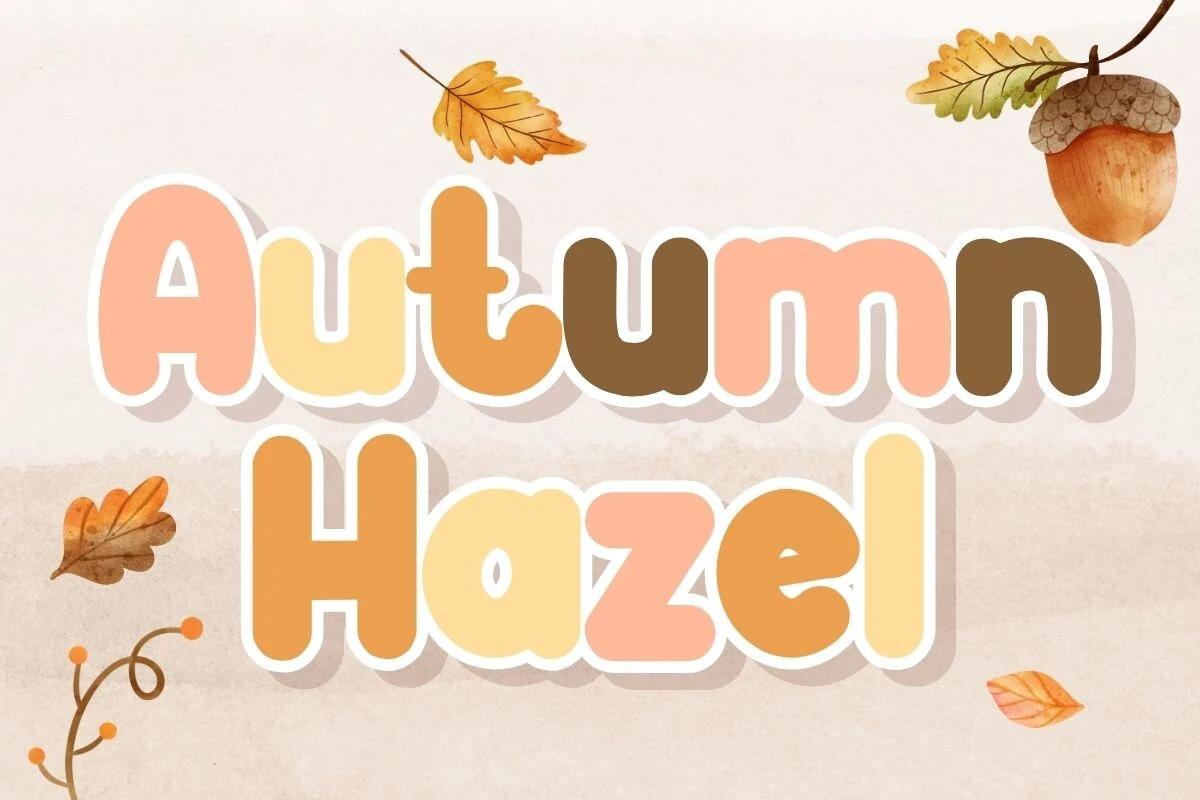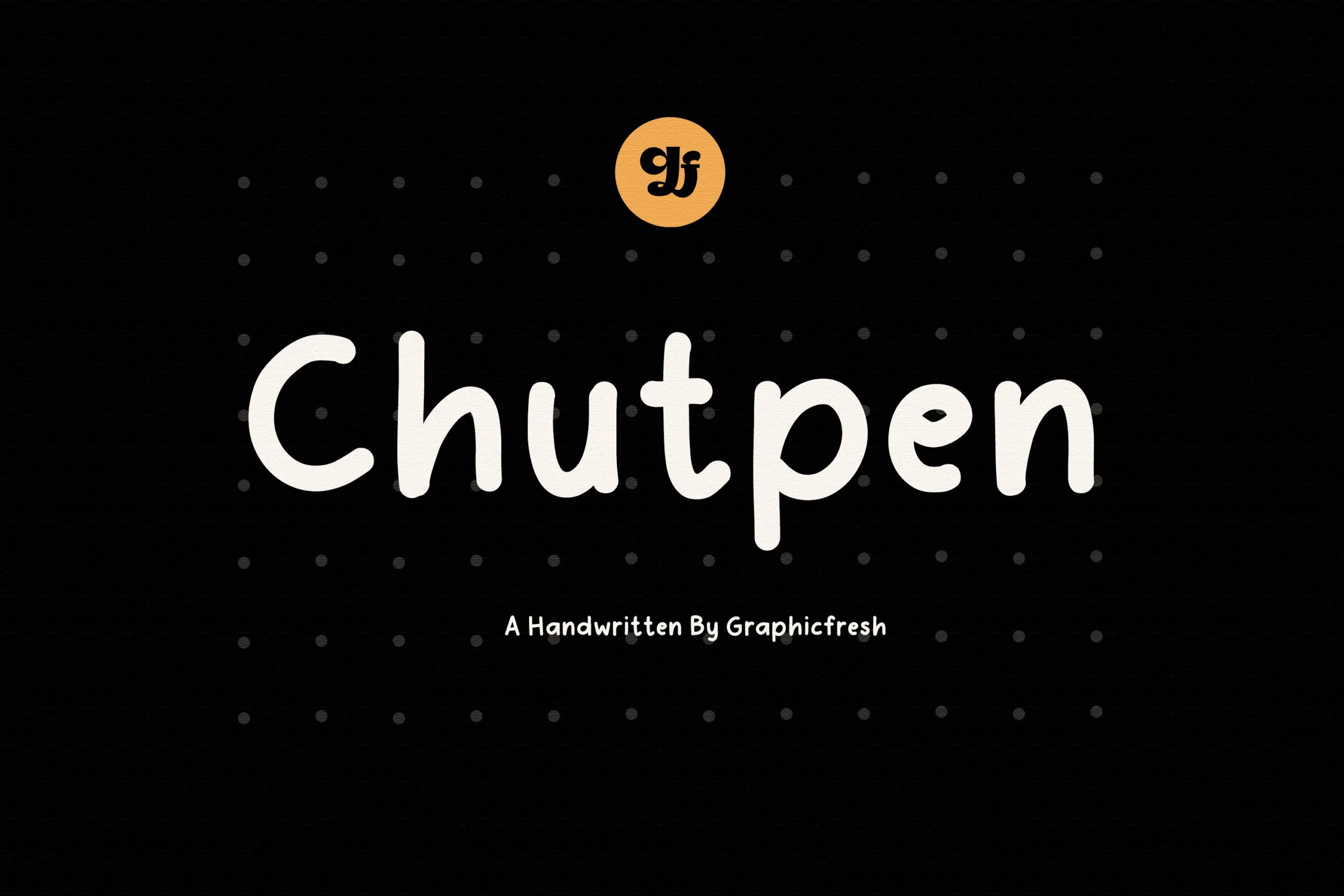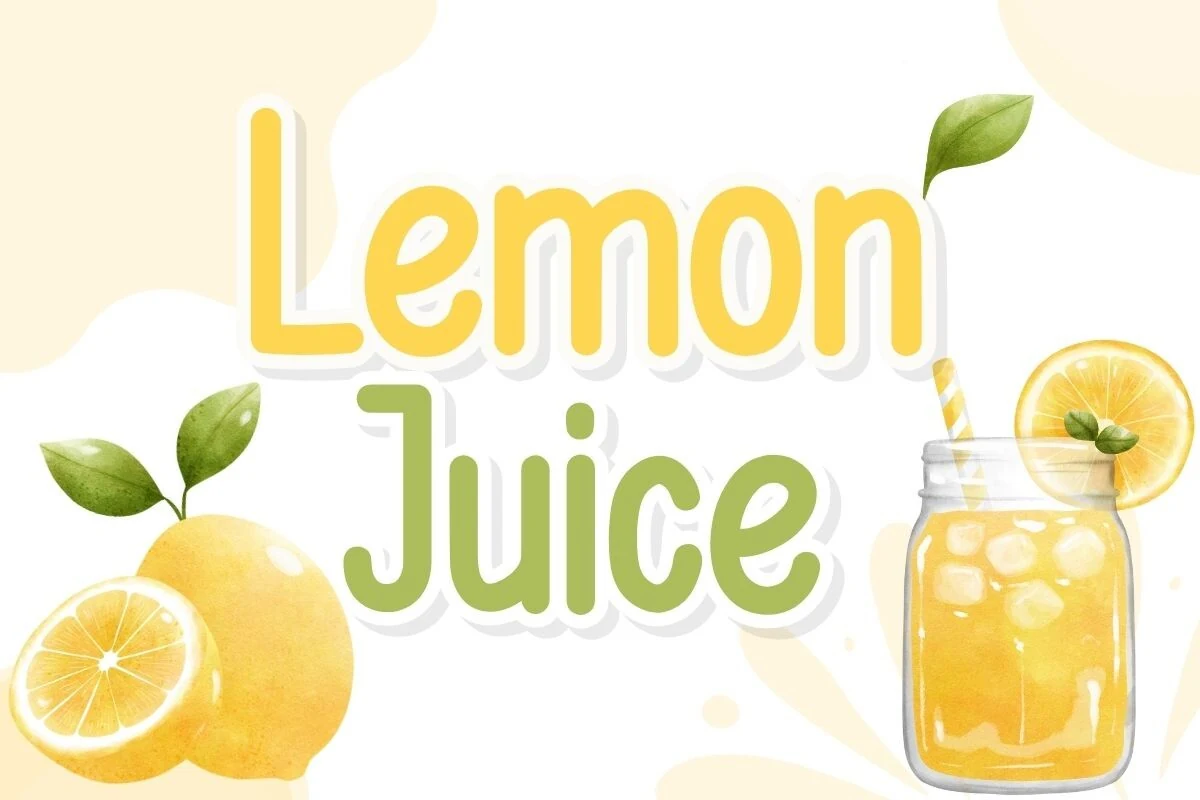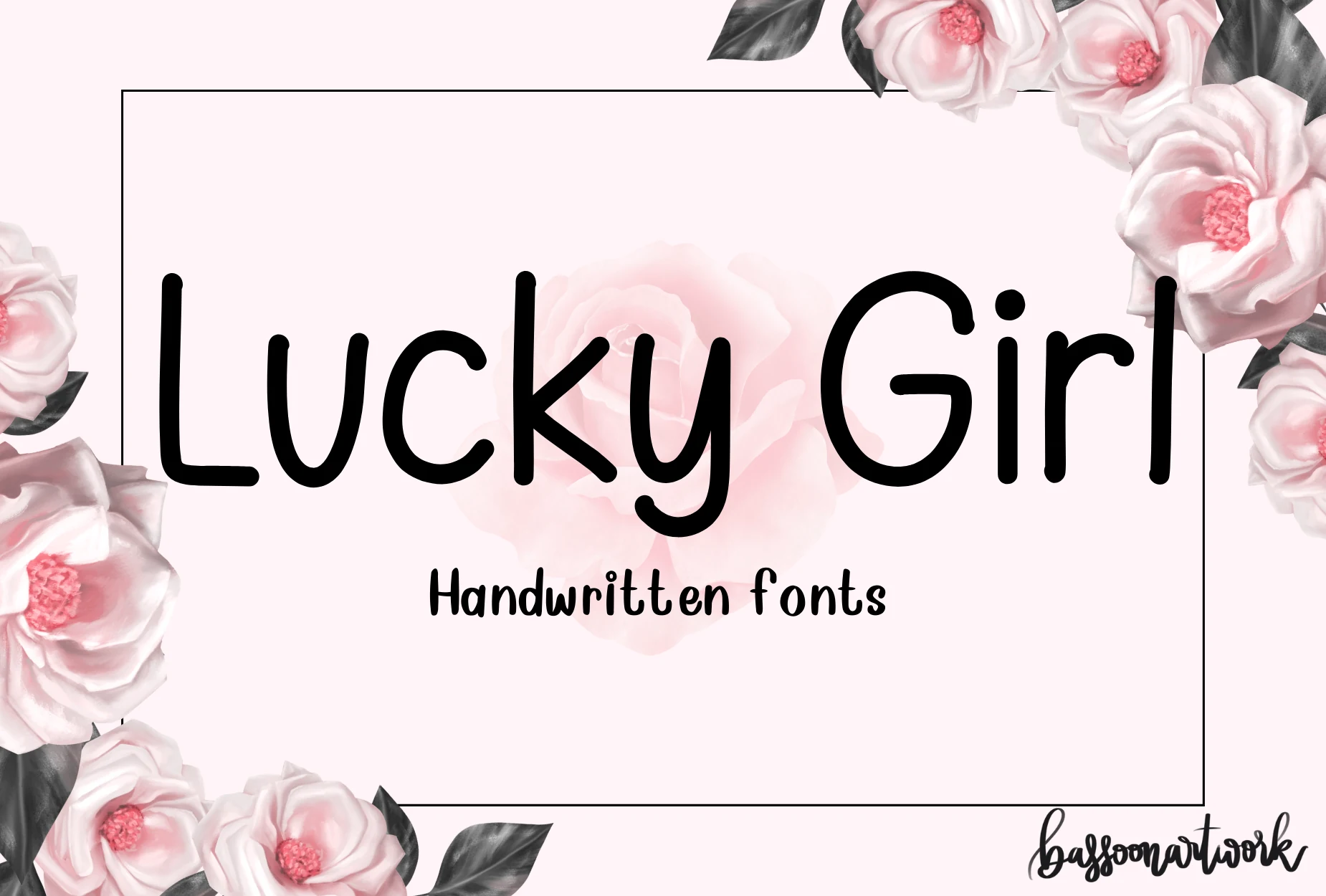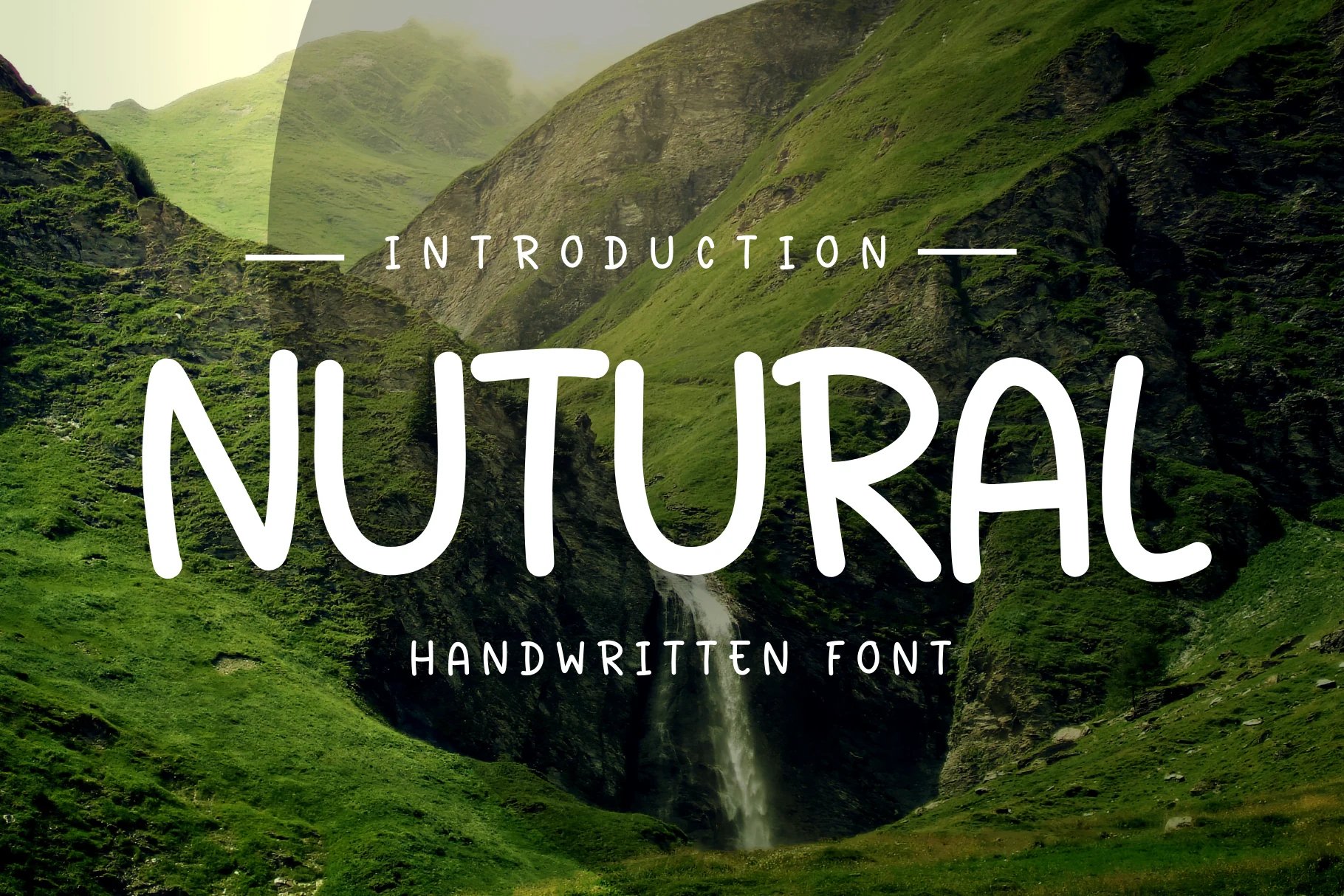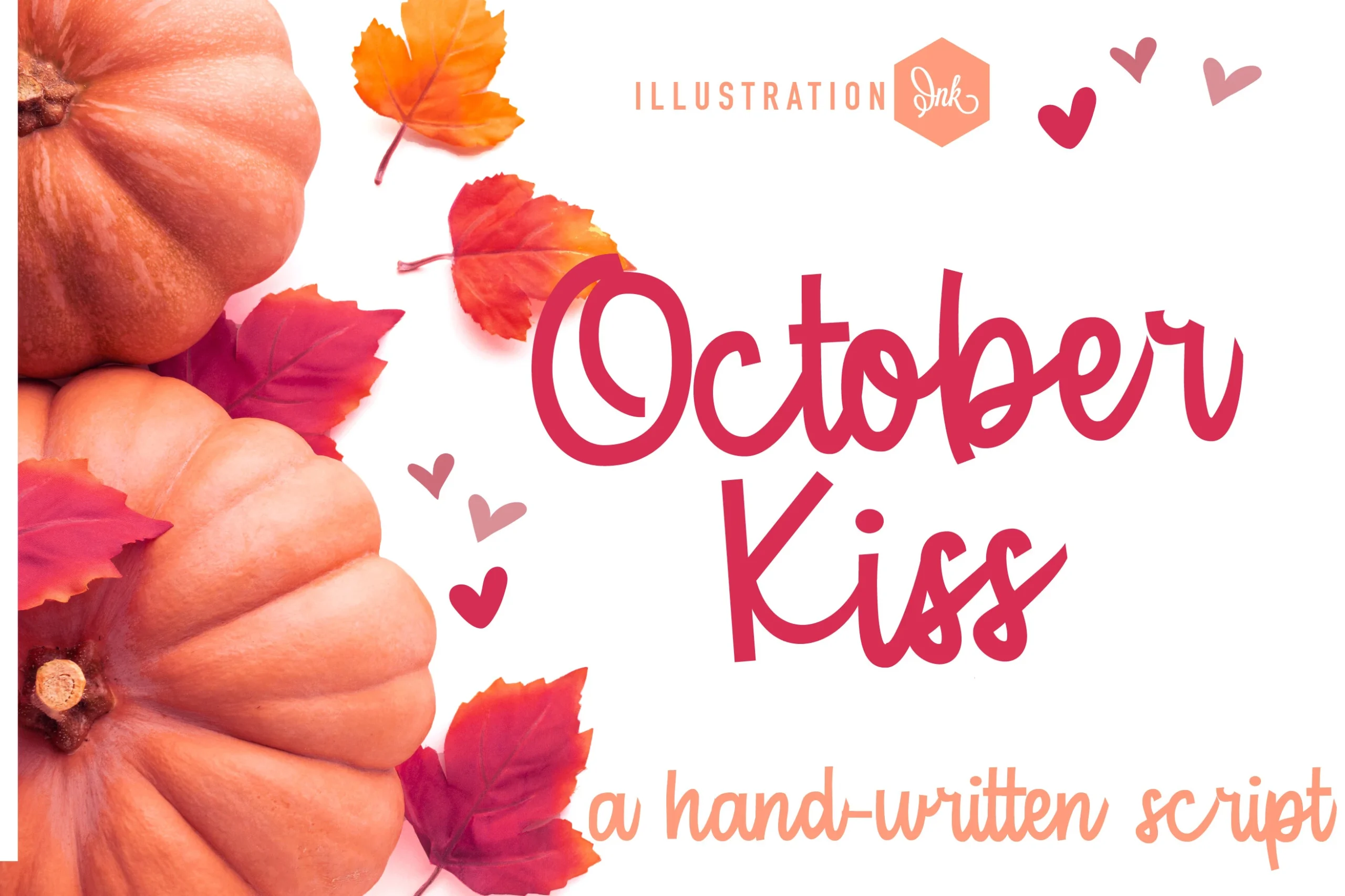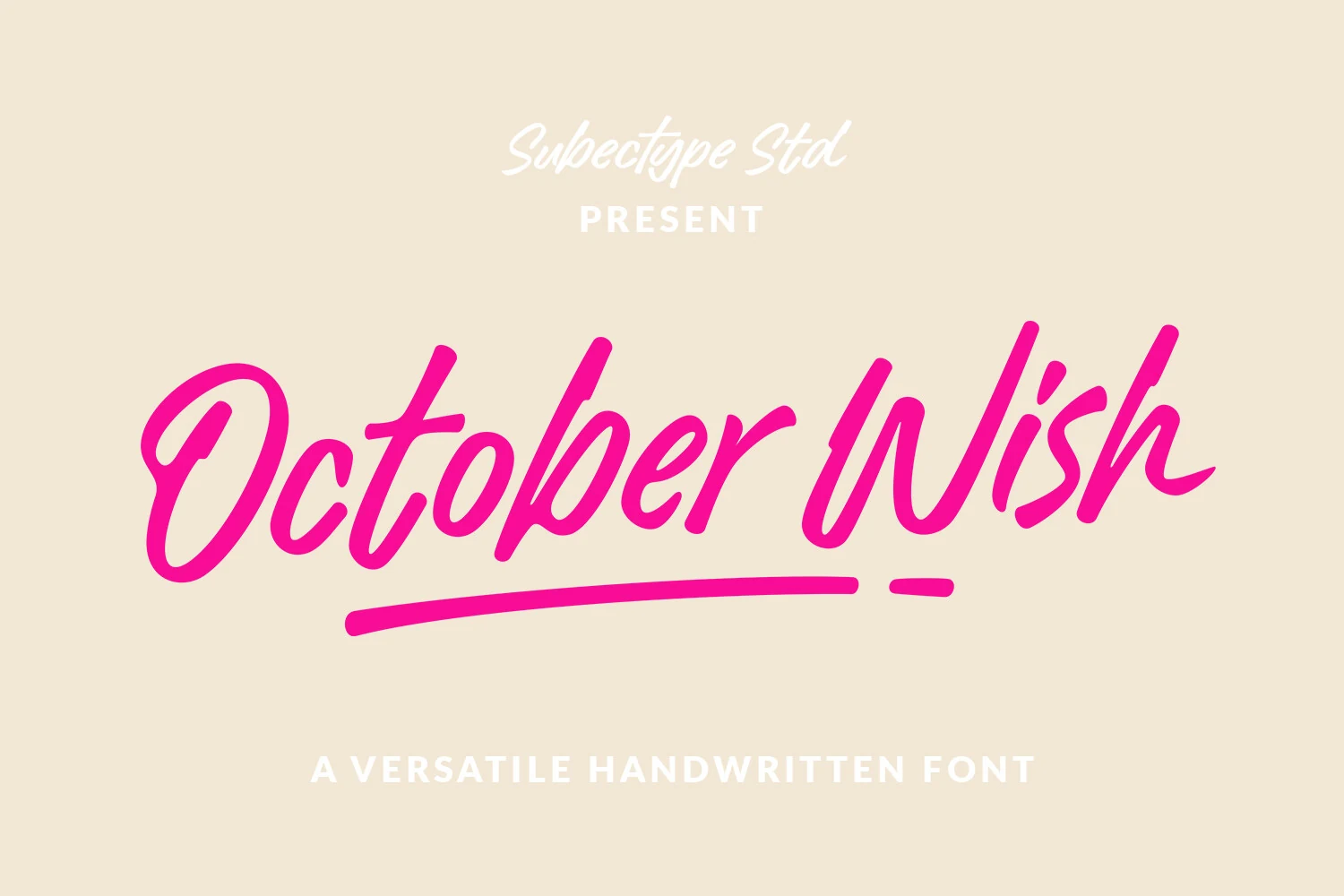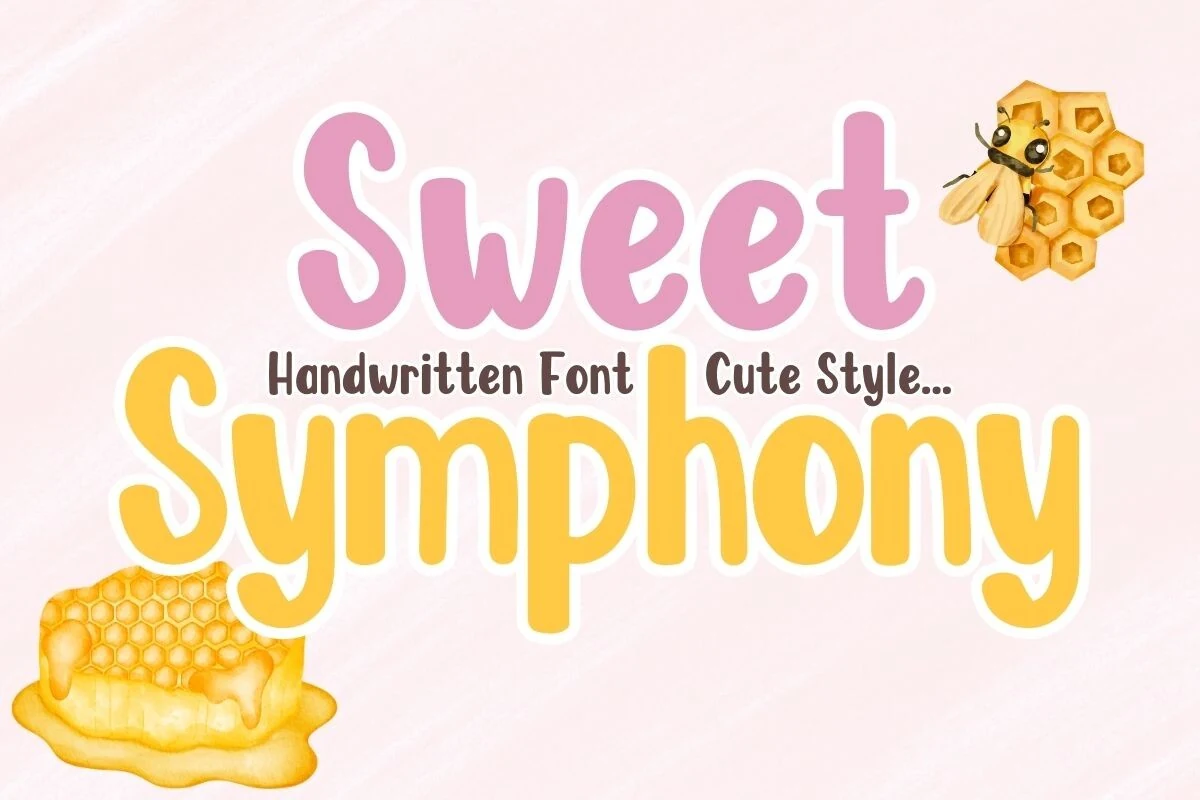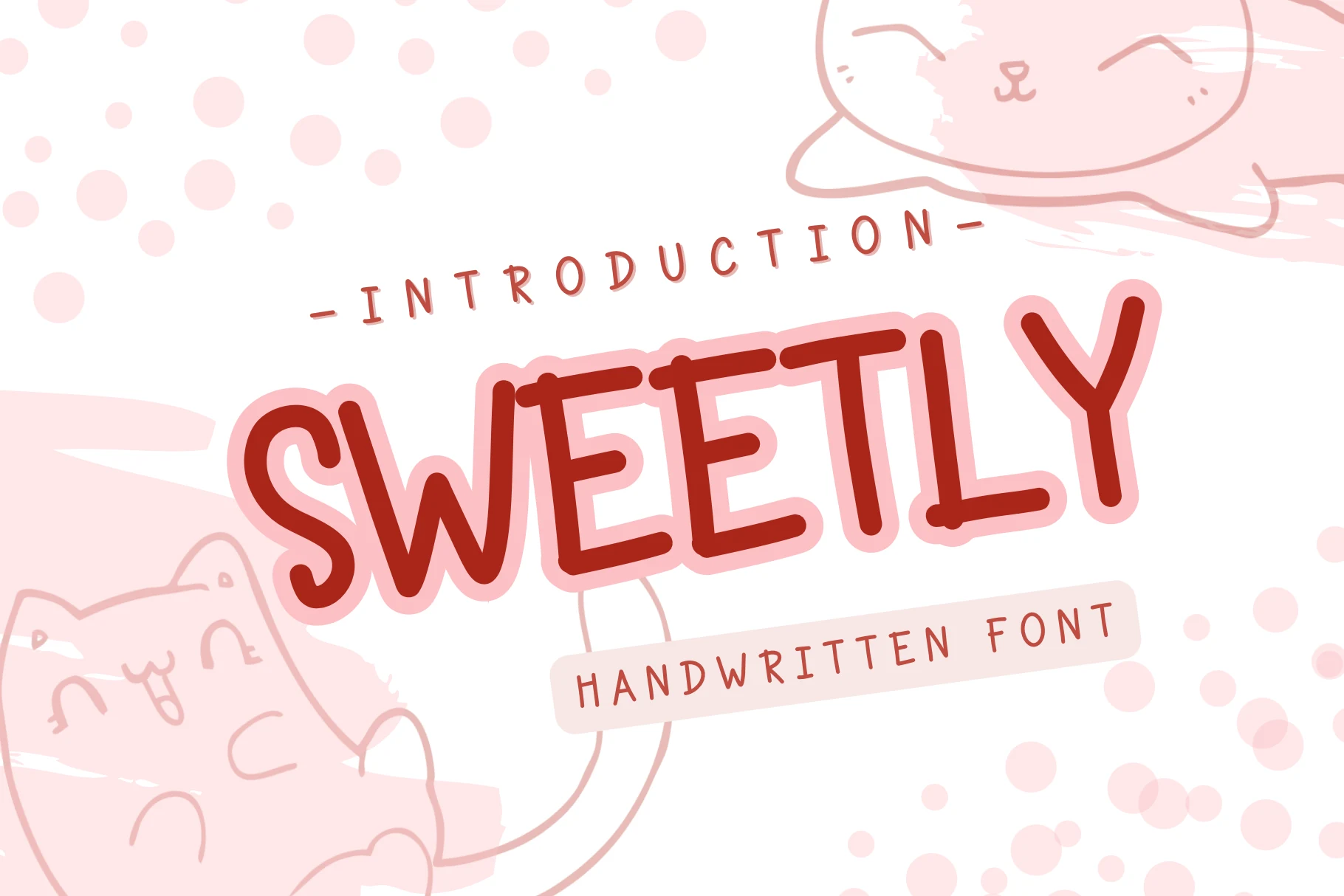
11 Beautiful Cute Handwritten Fonts for 2026 article preview collage featuring 10 font examples.
11 Beautiful Cute Handwritten Fonts for 2026
Cute Handwritten Fonts bring warmth, personality, and an approachable handmade feel to creative projects. This collection ranges from rounded display lettering and playful handwritten styles to flowing scripts and versatile font pairings. Use these designs to add charm to logos, packaging, invitations, social media graphics, apparel, cards, and other projects that benefit from expressive, friendly typography.
Rounded Cute Handwritten Fonts
These friendly display styles use rounded forms, soft curves, and clear lettering to create cheerful designs for packaging, logos, labels, social graphics, and more.
Sweet Symphony Font
Sweet Symphony Font featuring bold rounded lettering with soft curves, uniform strokes, and a playful handwritten style.
Sweet Symphony combines a rounded display presence with a handcrafted feel, using soft curves, uniform strokes, and smooth terminals. Its upright, disconnected letterforms keep the shapes friendly and clear, while the bold proportions give short messages a confident visual rhythm.
These Cute Handwritten Fonts work especially well for playful titles, labels, and other display applications where approachability matters. Keep tracking slightly open to preserve the rounded forms, and use strong background contrast when adding smaller supporting text so the main lettering remains the visual anchor.
Natural Font
Natural Font in rounded monoline lettering with soft terminals and an irregular baseline
Natural is a casual handwritten display face with rounded terminals, even monoline strokes, and an upright stance. Its disconnected characters and gently uneven baseline create an organic rhythm, while the bold, rounded shapes stay clear in titles and short messages. It brings the approachable charm associated with Cute Handwritten Fonts to notes, diary pages, greeting cards, and social graphics.
Keep tracking slightly open so the irregular baseline has room to breathe, and use a clean, lighter supporting weight to establish hierarchy around the lettering. Its friendly proportions suit banners, mugs, shirts, stationery, and other designs built around brief, readable phrases.
Sweetly Font
Sweetly Font shown in bold, rounded handwritten lettering with soft curves and monoline strokes.
Sweetly captures the appeal of Cute Handwritten Fonts with bold, rounded lettering, soft organic curves, and an upright, informal rhythm. Its monoline strokes and rounded terminals give each character a friendly, youthful feel while keeping the forms clear at medium and large sizes.
Use it for greeting cards, diary pages, mugs, shirts, banners, and social media graphics where a personal touch matters. Generous spacing supports short phrases and display text; for longer layouts, pair the heavier lettering with a lighter supporting weight and maintain clear title hierarchy.
Autumn Hazel Font
Autumn Hazel Font displayed in bold rounded lettering with thick monoline strokes and soft blunt corners.
Autumn Hazel has a friendly, rounded display style built from bold monoline strokes, soft terminals, and blunt corners. Consistent proportions and generous character spacing create a relaxed rhythm, while the sturdy shapes keep headings and short phrases clear at a glance.
A fitting option among Cute Handwritten Fonts, it brings a casual, approachable tone to logos, packaging, invitations, and social media graphics. Keep the lettering at a confident display size and preserve its open spacing; very small text may lose clarity as the rounded forms merge.
Chutpen Font
Chutpen Font handwritten lettering with rounded terminals and casual monolinear strokes
Chutpen Font brings a relaxed handwritten feel through rounded terminals, monolinear strokes, and gently irregular edges. Its disconnected letters keep each character clear while preserving a casual, approachable rhythm, making it a natural fit for Cute Handwritten Fonts in friendly editorial and display work.
The simple shapes remain readable at medium to large sizes, where the informal stroke texture has room to show. Use modest tracking to maintain its easy rhythm, and pair it with a restrained supporting weight when building title hierarchy or short featured phrases.
Lemon Juice Font
Lemon Juice Font lettering with rounded terminals, softened geometric shapes, and bold friendly strokes
Lemon Juice Font combines bold display presence with a handwritten feel, using rounded terminals, softened geometric corners, and an even monoline stroke. Its vertical forms, clean counters, and generous letter spacing keep the lettering clear while the broader secondary style adds a relaxed, friendly rhythm.
A cheerful option among Cute Handwritten Fonts, it suits titles, labels, and short expressive messages more naturally than dense reading text. Use the heavier style for the main title, then create hierarchy with the wider style or a lighter supporting weight; strong background contrast will preserve its clean, approachable shapes.
Conclusion
Choose rounded styles for clear, cheerful display text, casual handwritten options for an extra playful touch, or script designs when you want flowing movement and expressive personality. Together, these Cute Handwritten Fonts offer flexible ways to make everyday designs feel warmer and more distinctive.